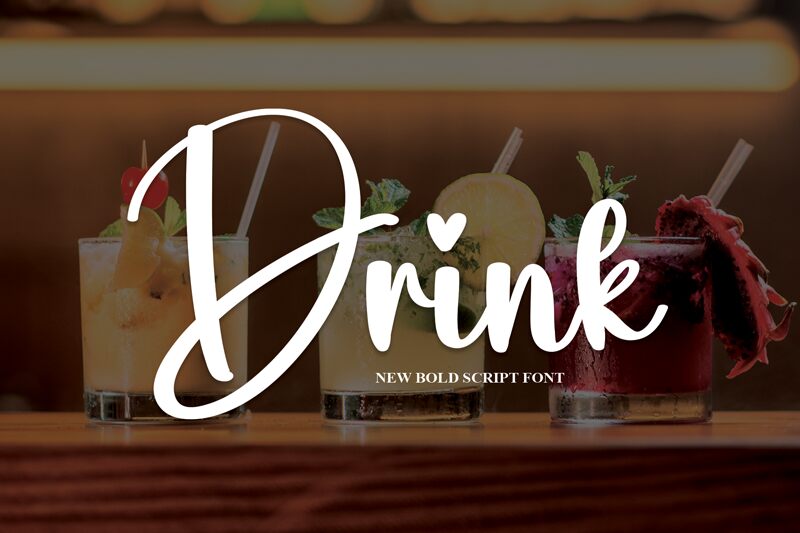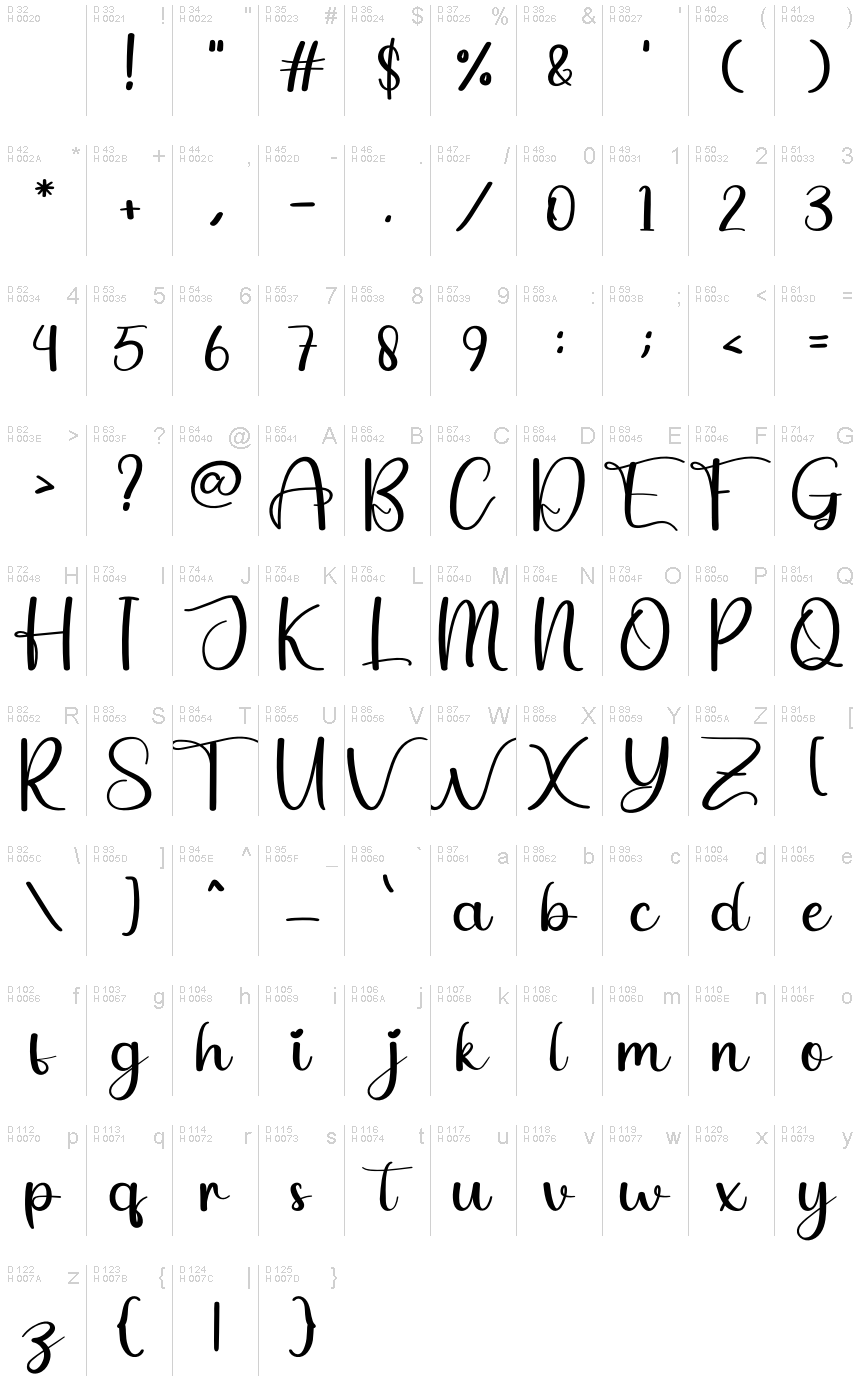
Drink
The Drink font, designed by Scratchones, exudes a lovely handwritten style that adds a touch of whimsy and warmth to any project.
Its delicate curves and graceful strokes make it perfect for wedding invitations, greeting cards, and love letters. With its playful yet sophisticated look, this font is also ideal for children's book illustrations and logo designs for boutique cafes or artisanal beverages.
Whether you're creating a heartfelt message or capturing the essence of a charming brand, Drink font will bring an enchanting elegance to your creations.